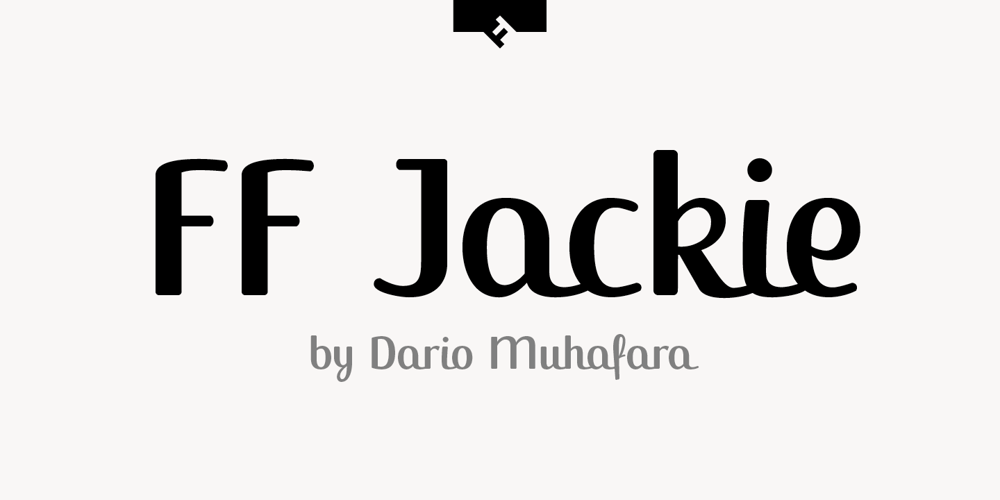
FF Jackie Font Family was designed by Dario Manuel Muhafara and published by FontFont. FF Jackie contains 4 styles and family package options. Argentinian type designer Dario Muhafara created this script FontFont between 2003 and 2009. The family contains 4 weights and is ideally suited for advertising and packaging, festive occasions, film and tv, poster and billboards as well as software and gaming. FF Jackie provides advanced typographical support with features such as swashes, ligatures, alternate characters, case-sensitive forms, and stylistic alternates. It comes with proportional lining figures.